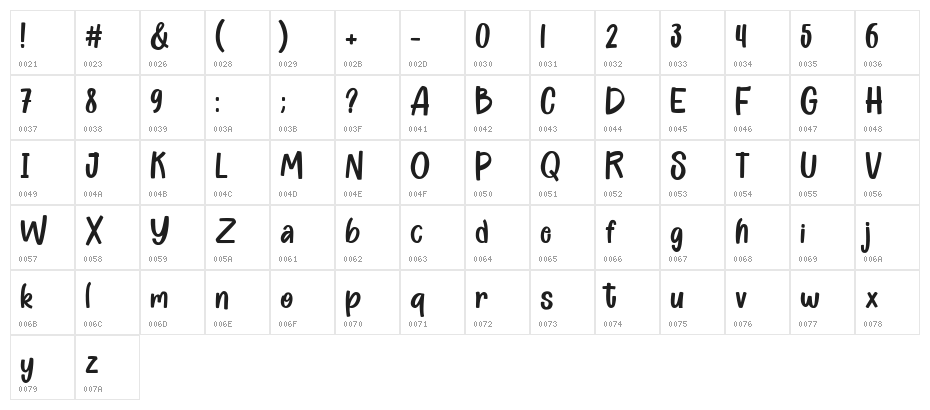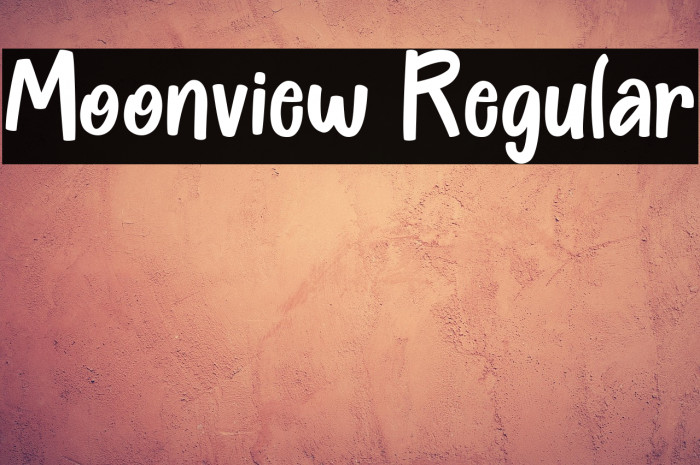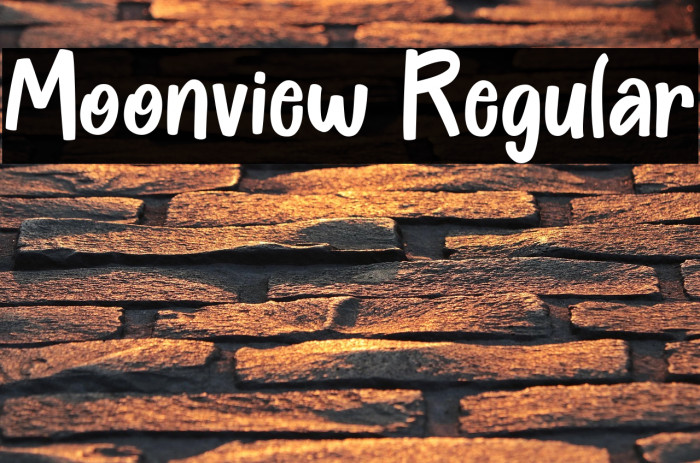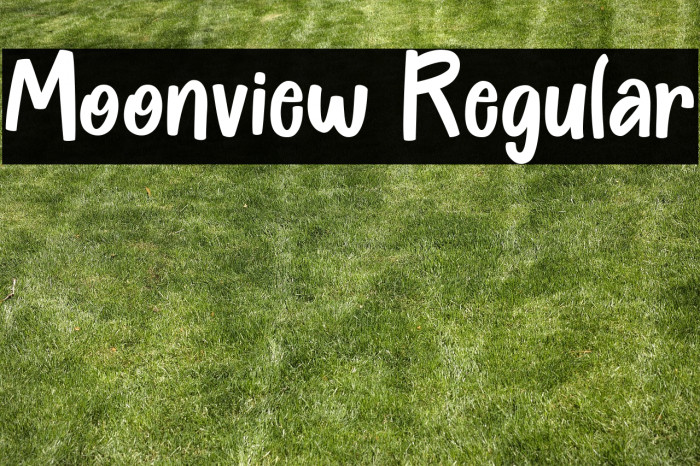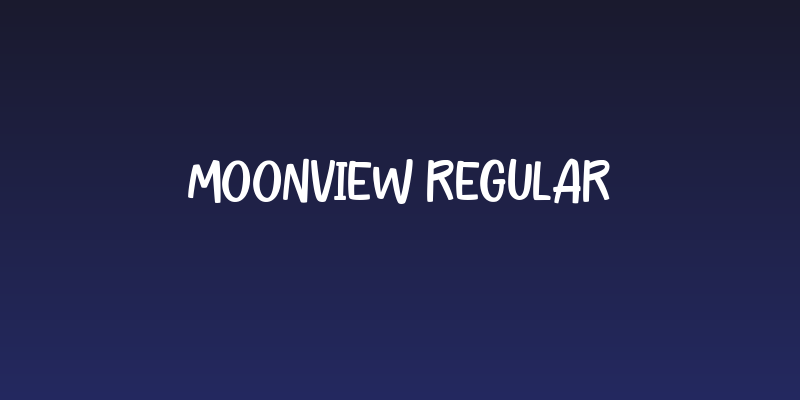
Moonview Regular Font
Moonview Regular Description
This font features a playful and bold handwritten style, characterized by its thick strokes and rounded edges. The letters are slightly irregular, giving it a casual and friendly appearance. The uppercase and lowercase letters maintain a consistent style, with a slight slant that adds to its dynamic look. The numbers and special characters are designed to match the overall aesthetic, making it versatile for various uses. Its boldness ensures high readability, while the unique style adds a touch of personality to any project.
| Overall Style | Playful |
| Use Case | Logos, Headlines, Posters |
| Proposed Projects | Ideal for children's books, playful branding, greeting cards, and social media graphics. |